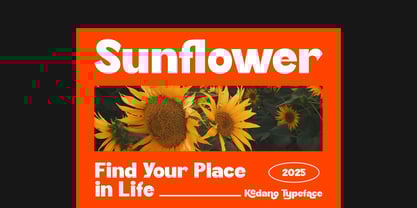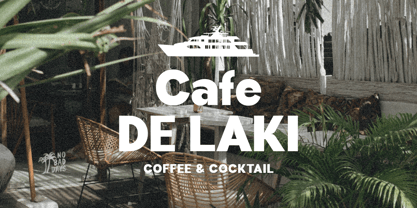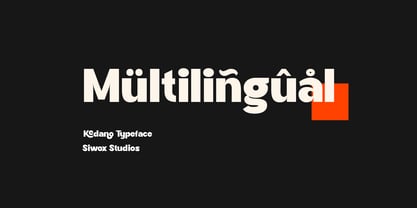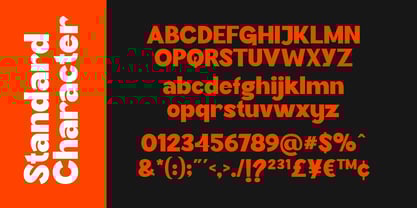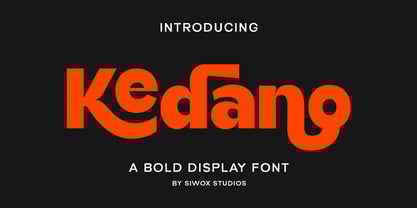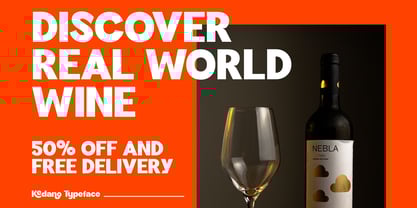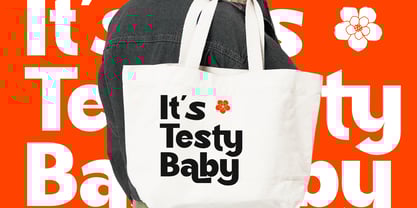
Kedano
The Kedano Font Family was designed by Rizaldi Wandani and published by Siwox Studios. Kedano contains 1 styles. More about this family
Introducing Kedano Font is a bold and elegant display font equipped with Alternate and Ligature that is suitable for branding, posters, logos, and advertisements. This font ensures that the message conveyed through the text remains easy to read and understand.